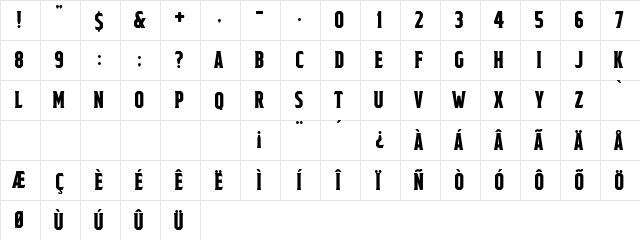
Lez Champs Regular
| Designer | HENRIavecunK |
Design Context for Lez Champs Typeface
Lez Champs offers clean, dependable letterforms without strong stylistic allegiance, making it a practical choice for designers who need flexibility.